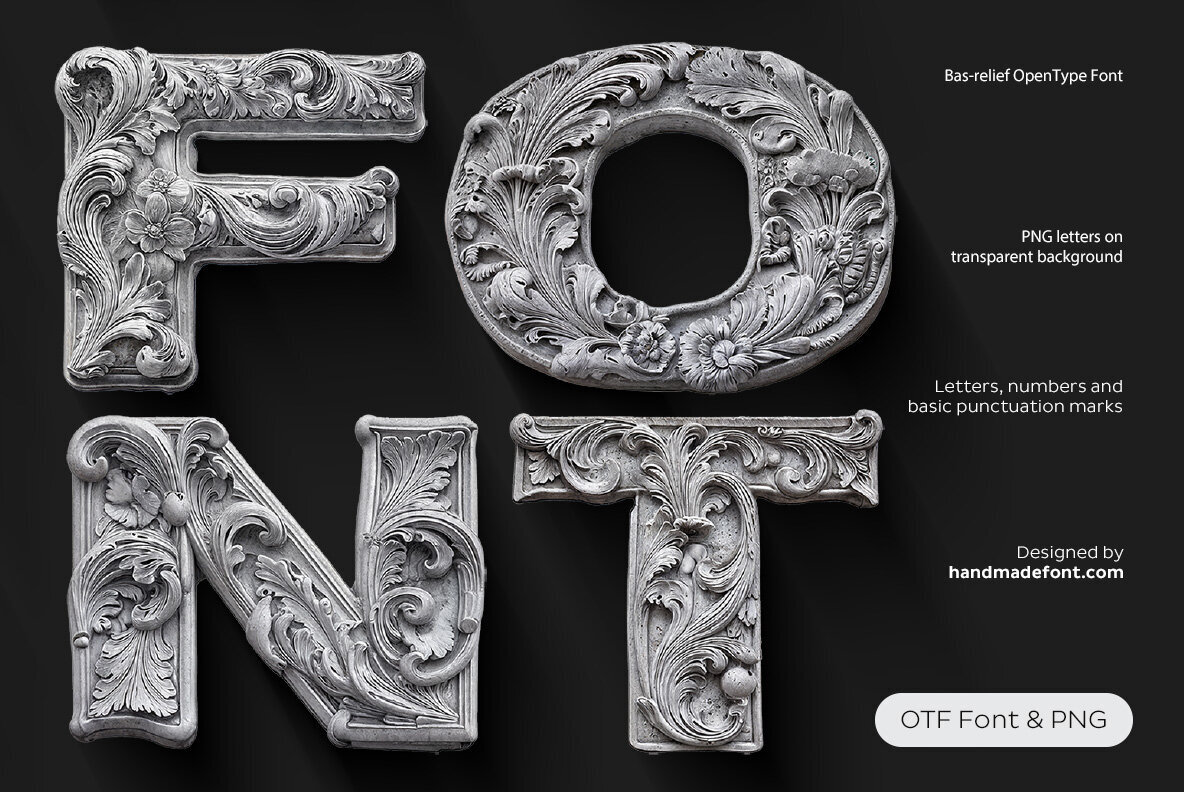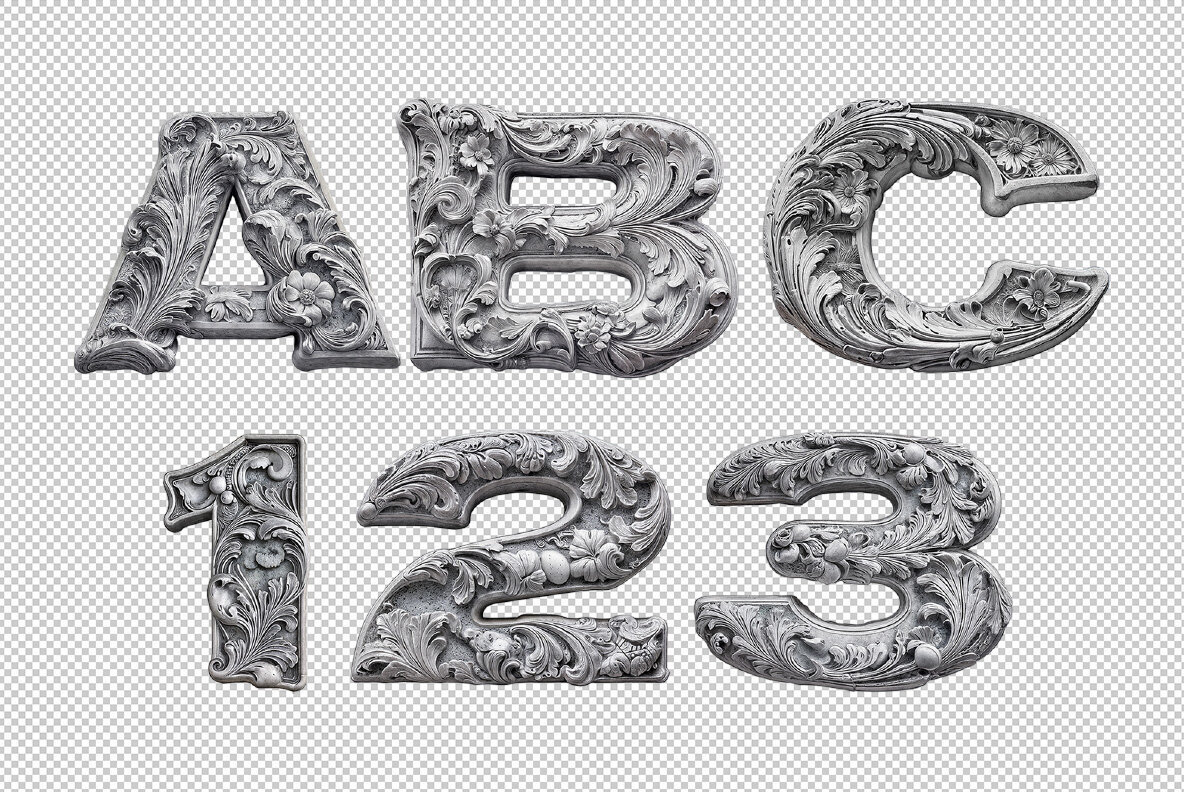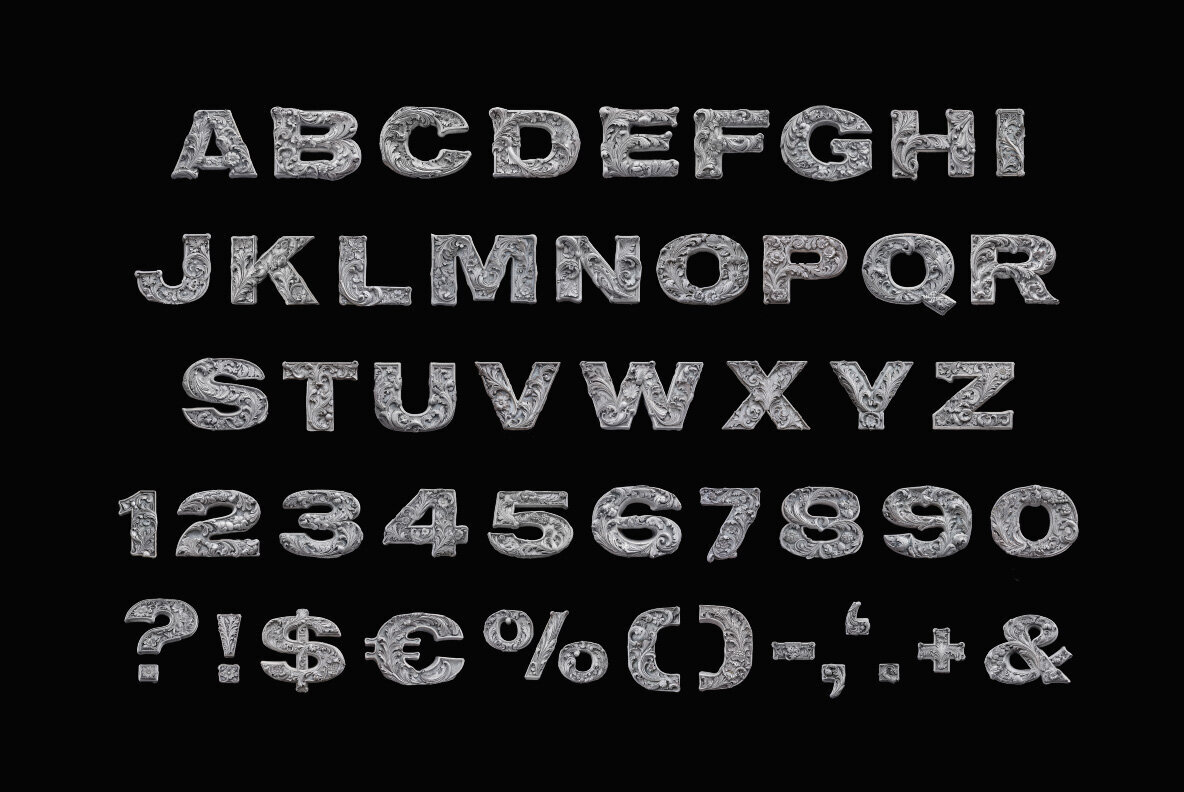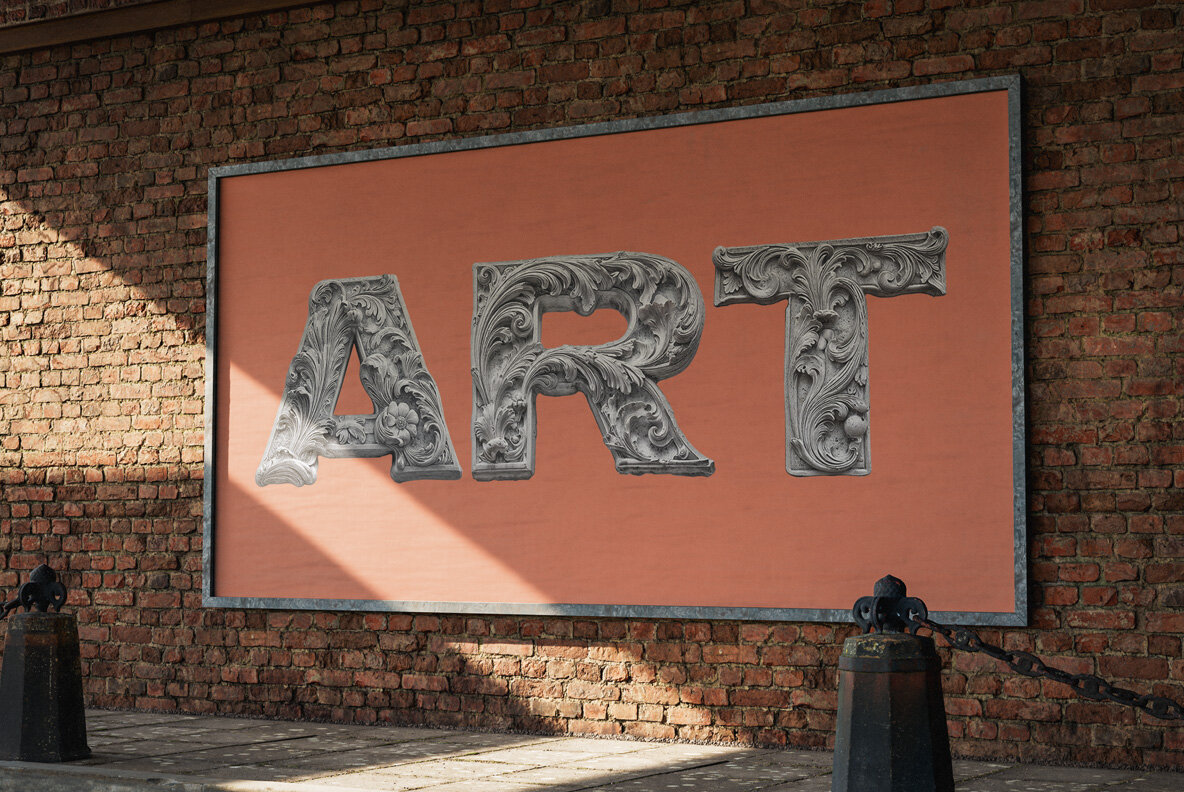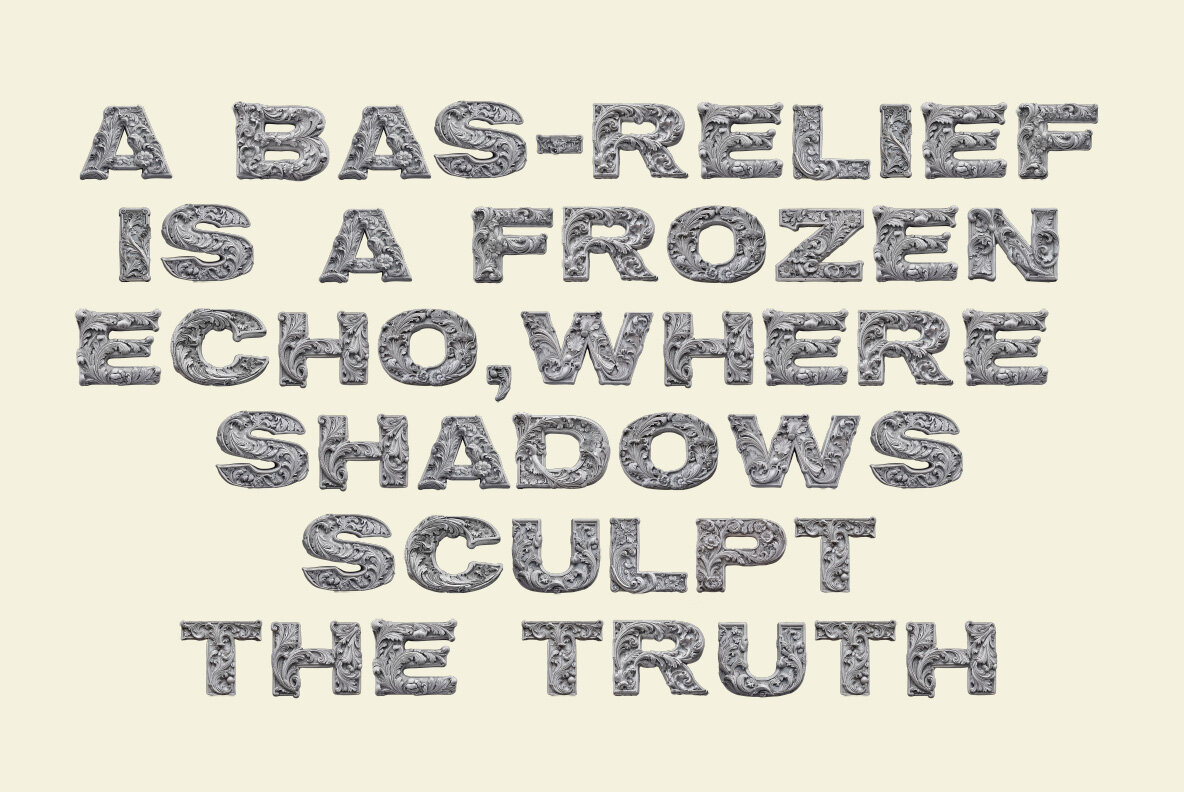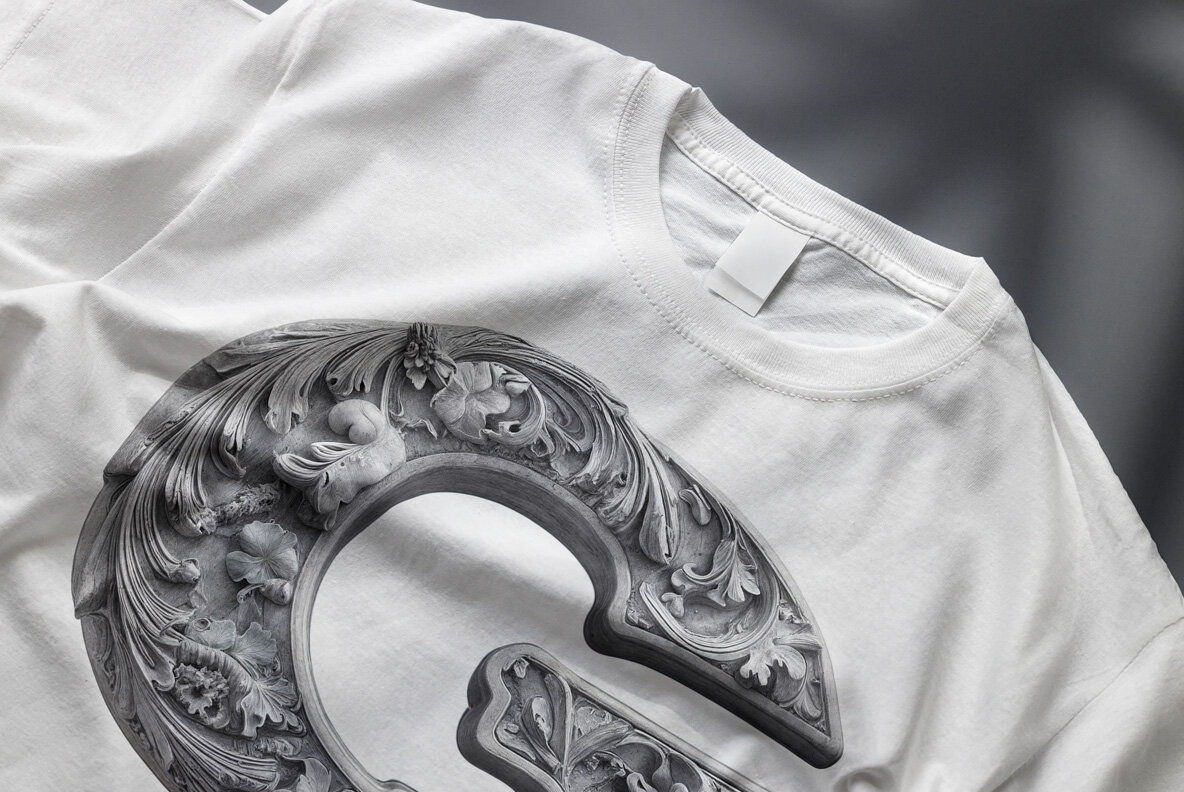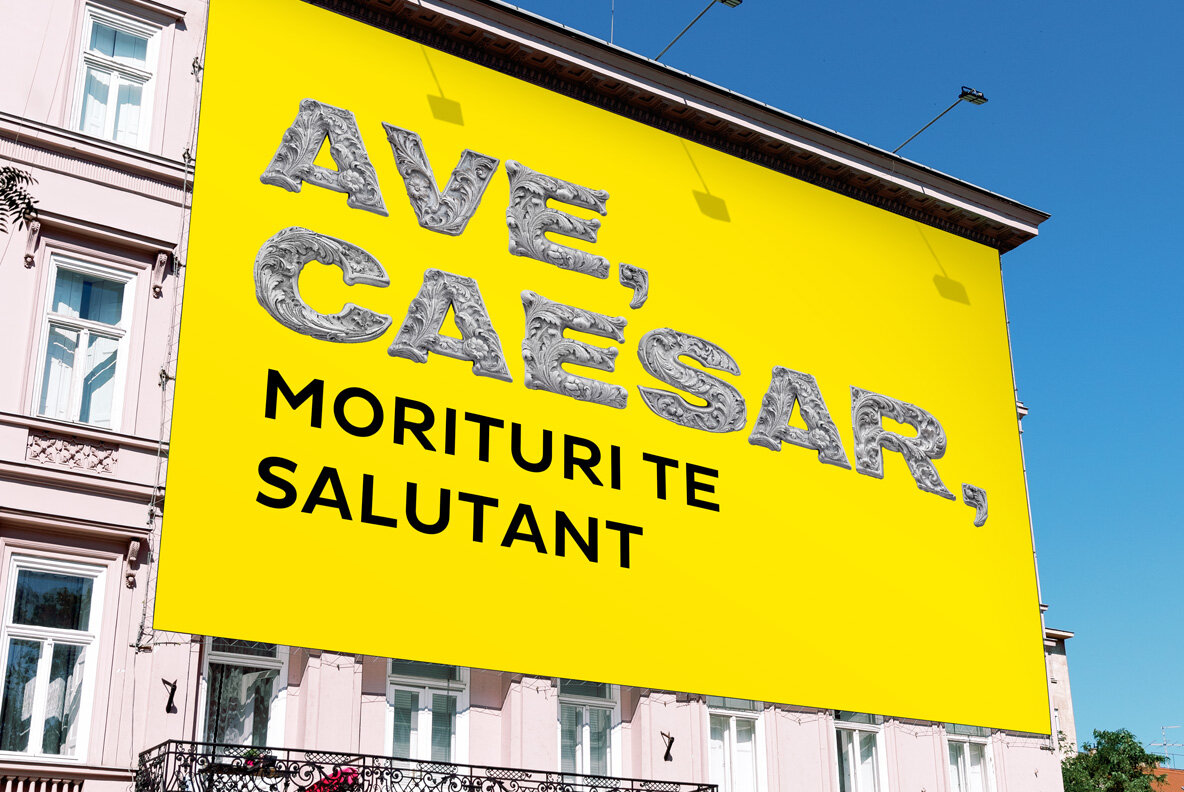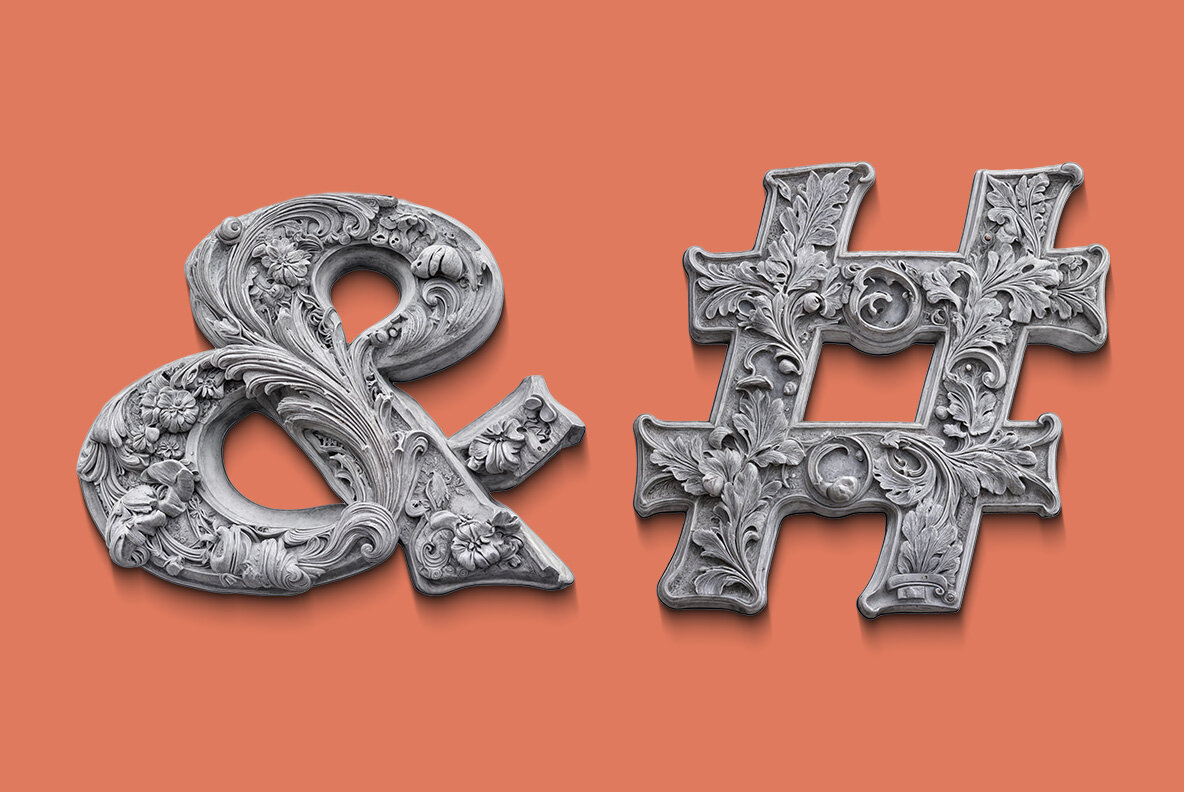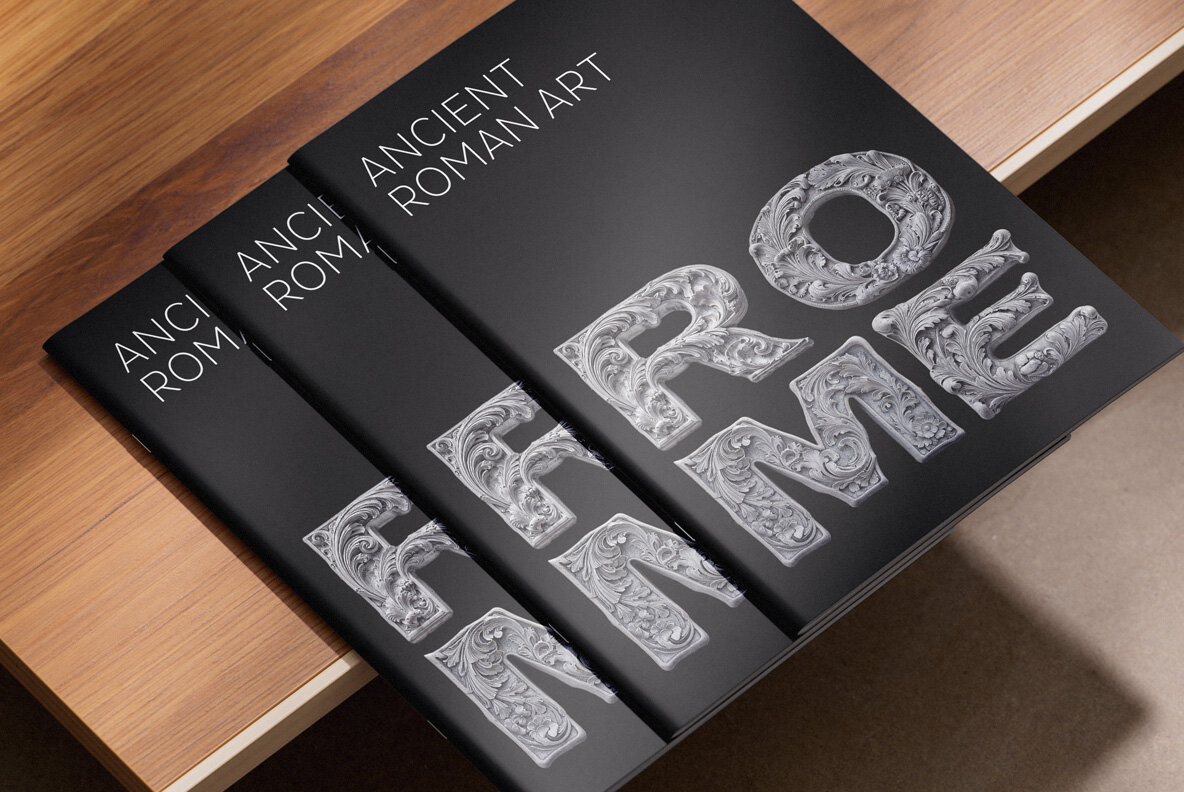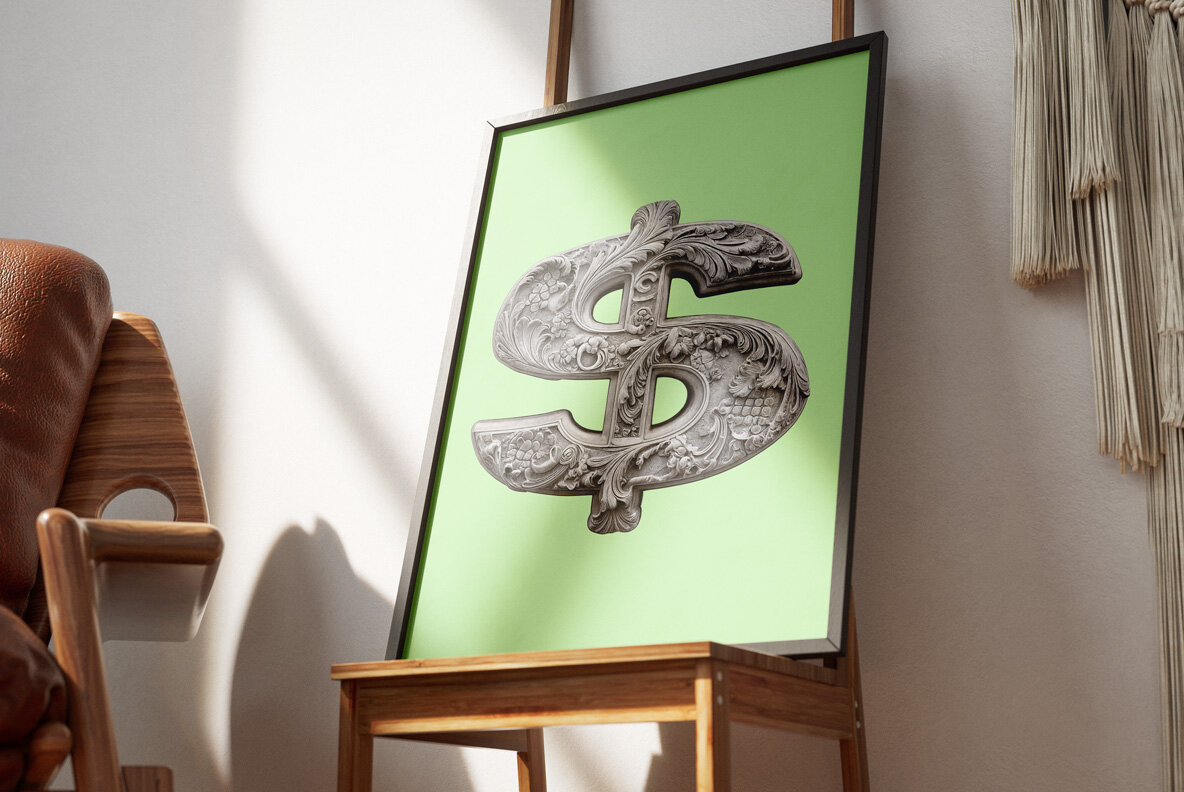
Stone never looked so sophisticated—until now. Meet Bas-relief Font, where each letter is a miniature masterpiece of sculpted elegance. Imagine an alphabet chiseled from the grandest baroque dreams, adorned with swirling filigree and floral carvings worthy of a Renaissance palace. This isn’t just typography; it’s a full-fledged artistic rebellion against the mundane. With its embossed, vintage charm, this Bas-relief-inspired font whispers secrets of classical engraving while flexing its luxurious, ornamental curves. Whether you're designing for aristocrats or time-traveling architects, this font turns every word into an opulent work of art. Warning: May cause spontaneous admiration and uncontrollable gasps. A high definition OpenType Font. Contains uppercase characters, numerals and basic punctuation. (Draw height roughly 800 pixels). All letters and glyphs that comprises this font you can see on the preview. The font is a colour OpenType file which means this font will show up only in apps that are compatible with color bitmap fonts. Now that OpenType-SVG has been adopted as the industry standard, there is good chance that you can start using color fonts across your favorite software and hardware (Photoshop, Illustrator, InDesign, QuarkXPress, Keynote, PowerPoint, Word etc.) However all characters are also included as individual .png files which can be opened in any graphics software. Each letter comes as a separate PNG file on a transparent background. Each image has the high resolution size of 4000x4000px. This downloadable package contains 52 files. Letters: A B C D E F G H I J K L M N O P Q R S T U V W X Y Z Punctuation and Language Support. Due to the large nature of OpenType-SVG fonts, extended punctuation and language support are not included in the font files. However all punctuation characters and the following accents are included as individual image files in the .png letter set, which can be manually added to your text.